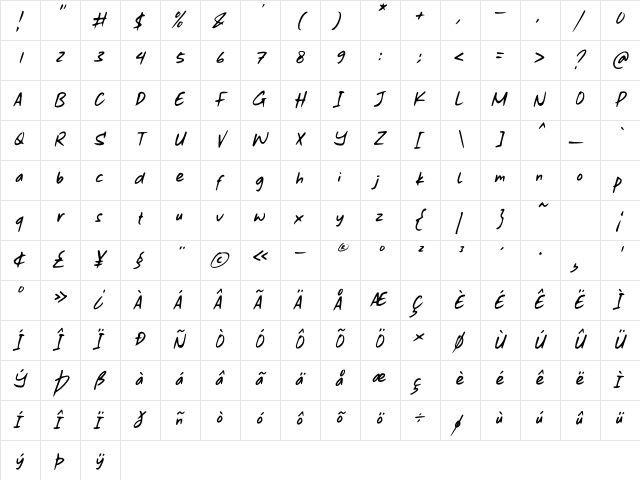
Great Journal Three Slant Regular
Designer: Muhamad Yusron Billah
Design Context for Great Journal Three Slant
Great Journal Three Slant is a composed and adaptable typeface that performs quietly and consistently across a wide range of design contexts.
Pro Tip: Use Great Journal Three Slant in both headline and body roles to test its range before committing to a single application.